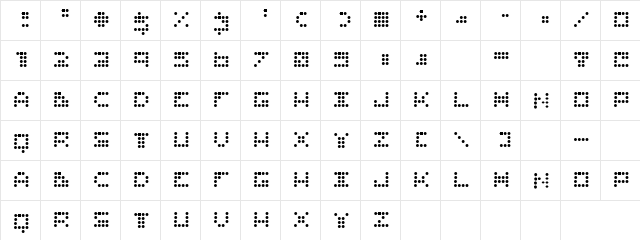
Robot Regular
Design Context for Robot Typeface
Robot takes a measured approach to typography — its balanced proportions and neutral character make it a reliable workhorse for both digital and print work.